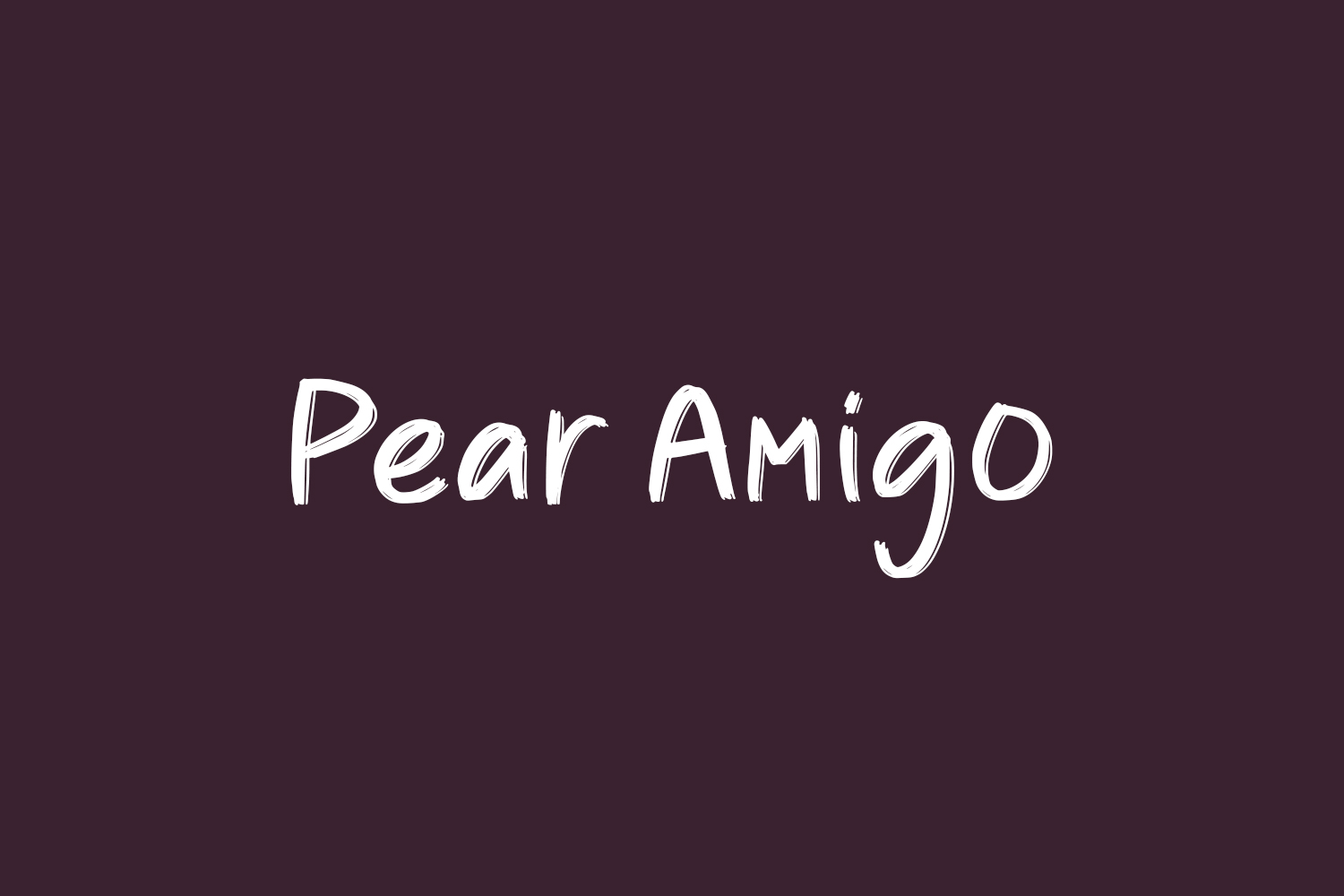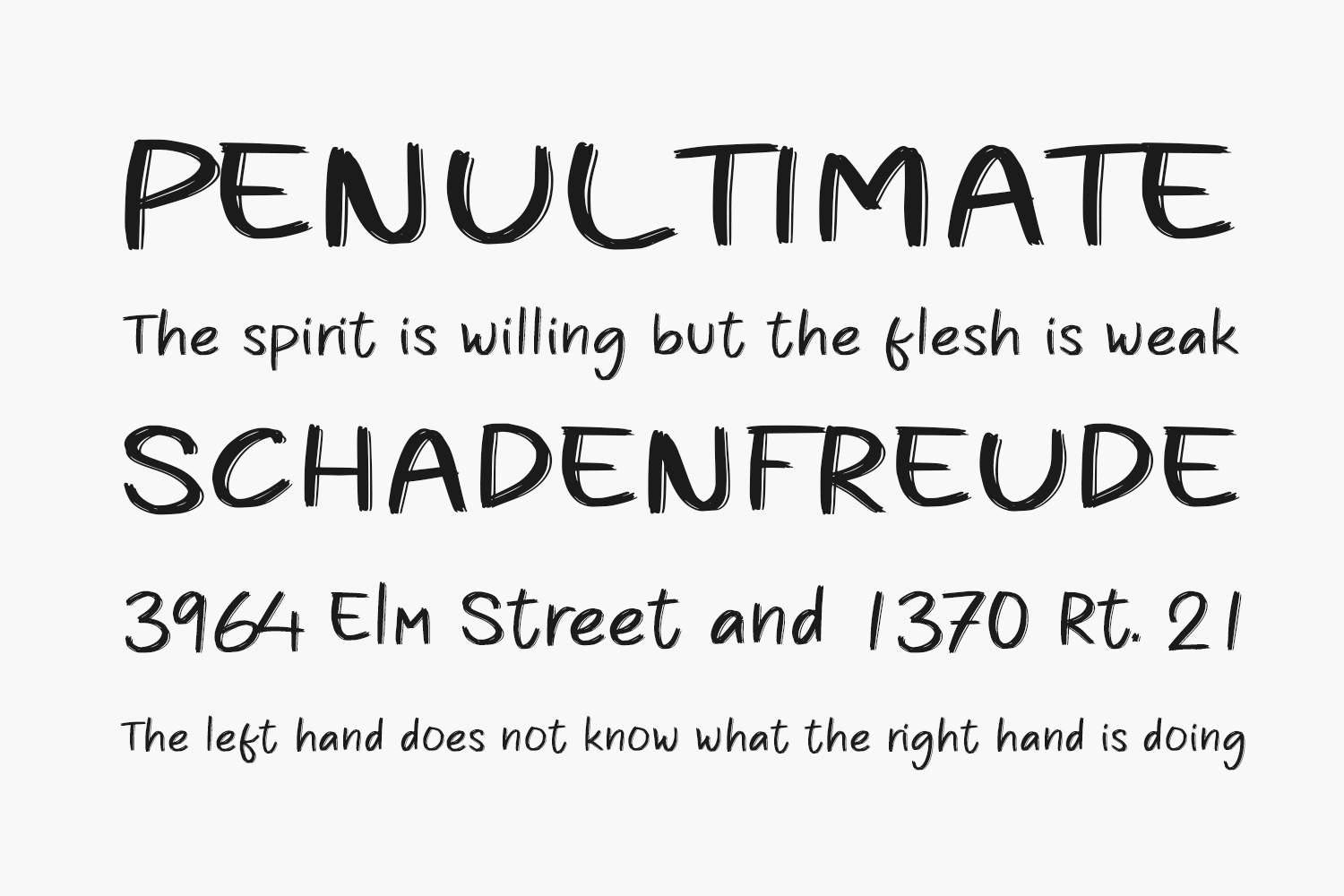
Pear Amigo Free Font is a fun handwritten typeface font. Hallow Spire is perfect for product packaging, branding project, magazine, social media, weddings, or just used to express words above the background. Pear Amigo Free Font was designed by Qwrtype Foundry and is free for personal use only. Please purchase the full version for commercial use.